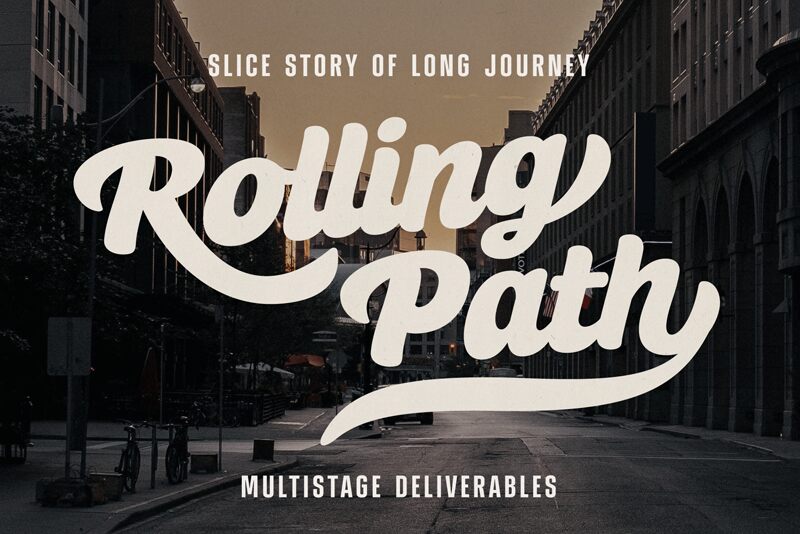
SandlerTrial-Regular
Sandler, the creation of talented designer Eko Bimantara, is a captivating font that combines smooth brush strokes with a bold weight.
Its vintage style adds a touch of nostalgia to any project, making it perfect for creating eye-catching logos and branding materials for retro-inspired businesses. The distinctiveness of Sandler also lends itself well to designing posters and album covers for musicians who seek a unique and artistic look.
With its seamless blend of modern boldness and timeless charm, Sandler is truly the font to elevate your creative endeavors.